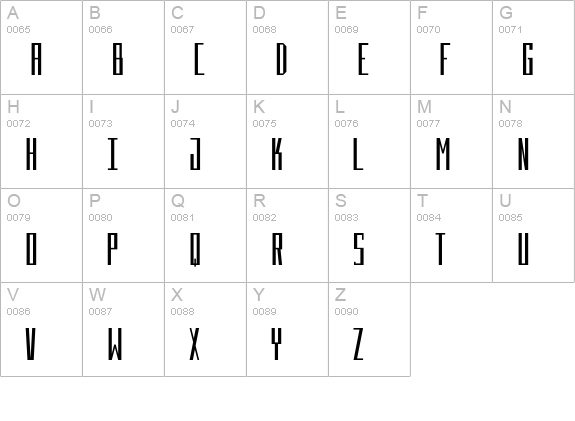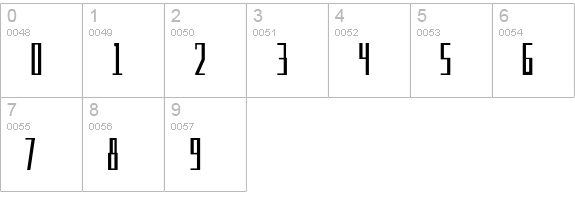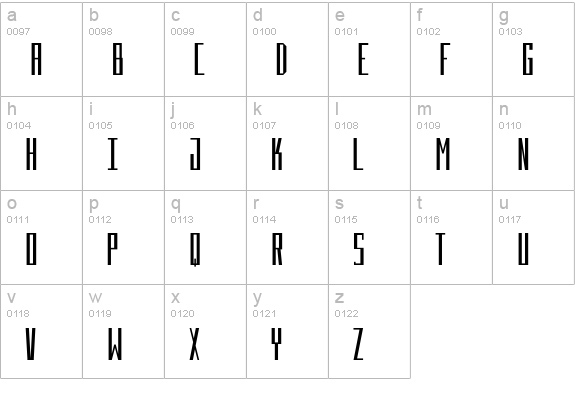
Beckett Font Details
Beckett font is a modern and stylish typeface that exudes elegance and sophistication. Its clean lines and balanced proportions make it ideal for a wide range of design projects, from branding to editorial layouts. The versatility of Beckett font allows it to be used in both digital and print applications, adding a touch of timeless charm to any design. This exquisite font is available for free download at FontsMarket.com, making it easily accessible to designers and creatives looking to elevate their work with a touch of class. Whether you're working on a website, logo, poster, or any other project, Beckett font is sure to make a lasting impression with its refined aesthetic and timeless appeal. Download Beckett font today and add a touch of sophistication to your next design endeavor.